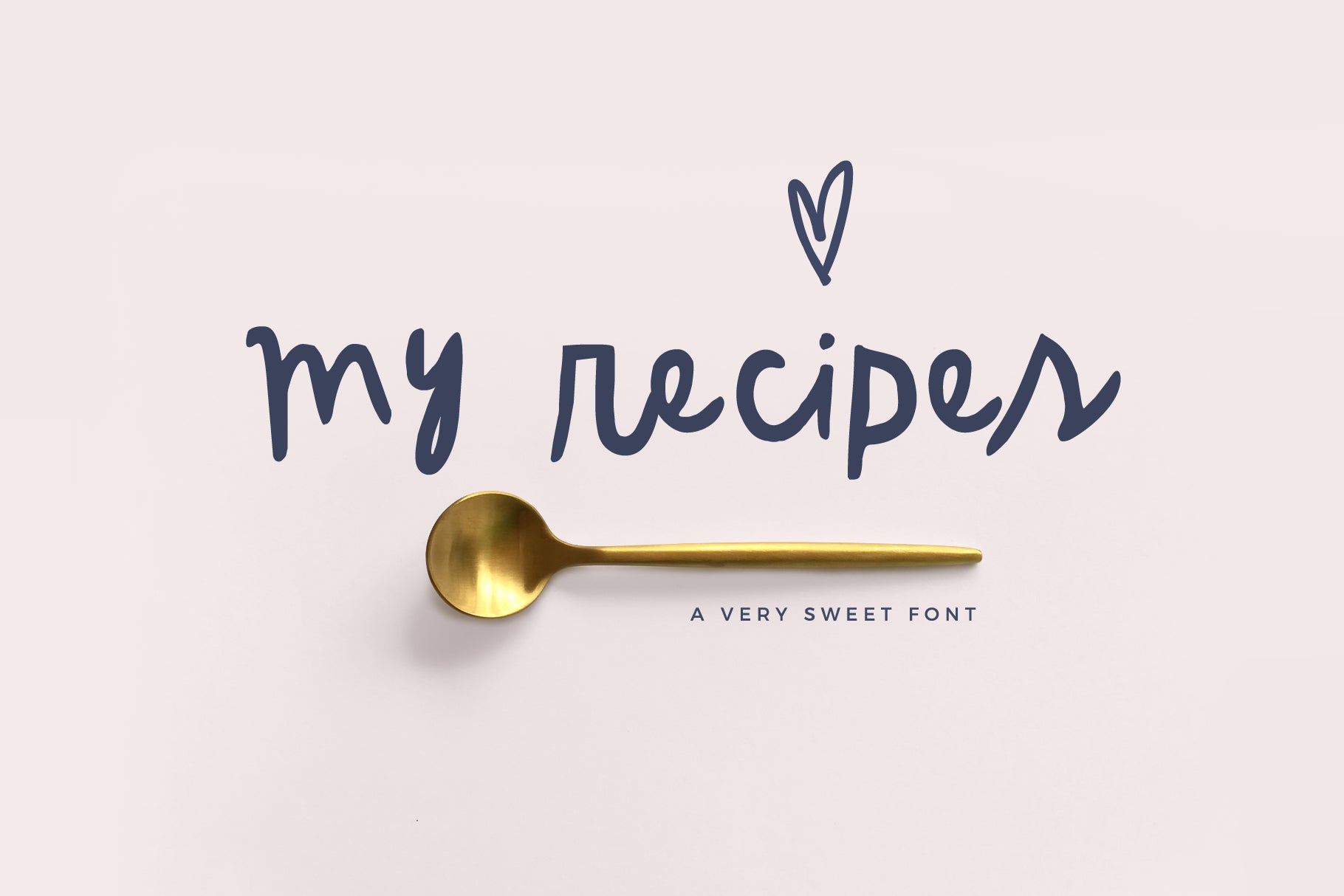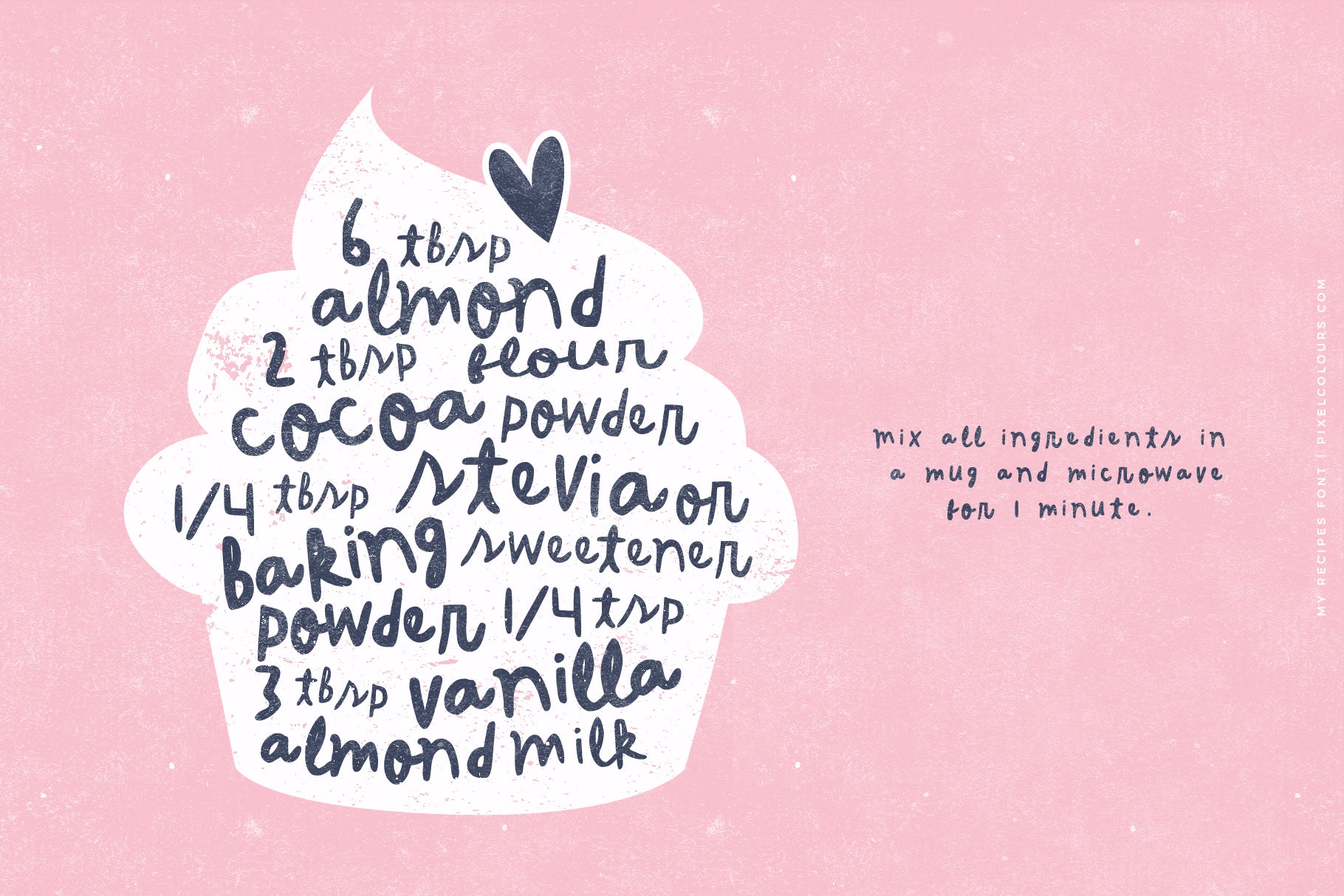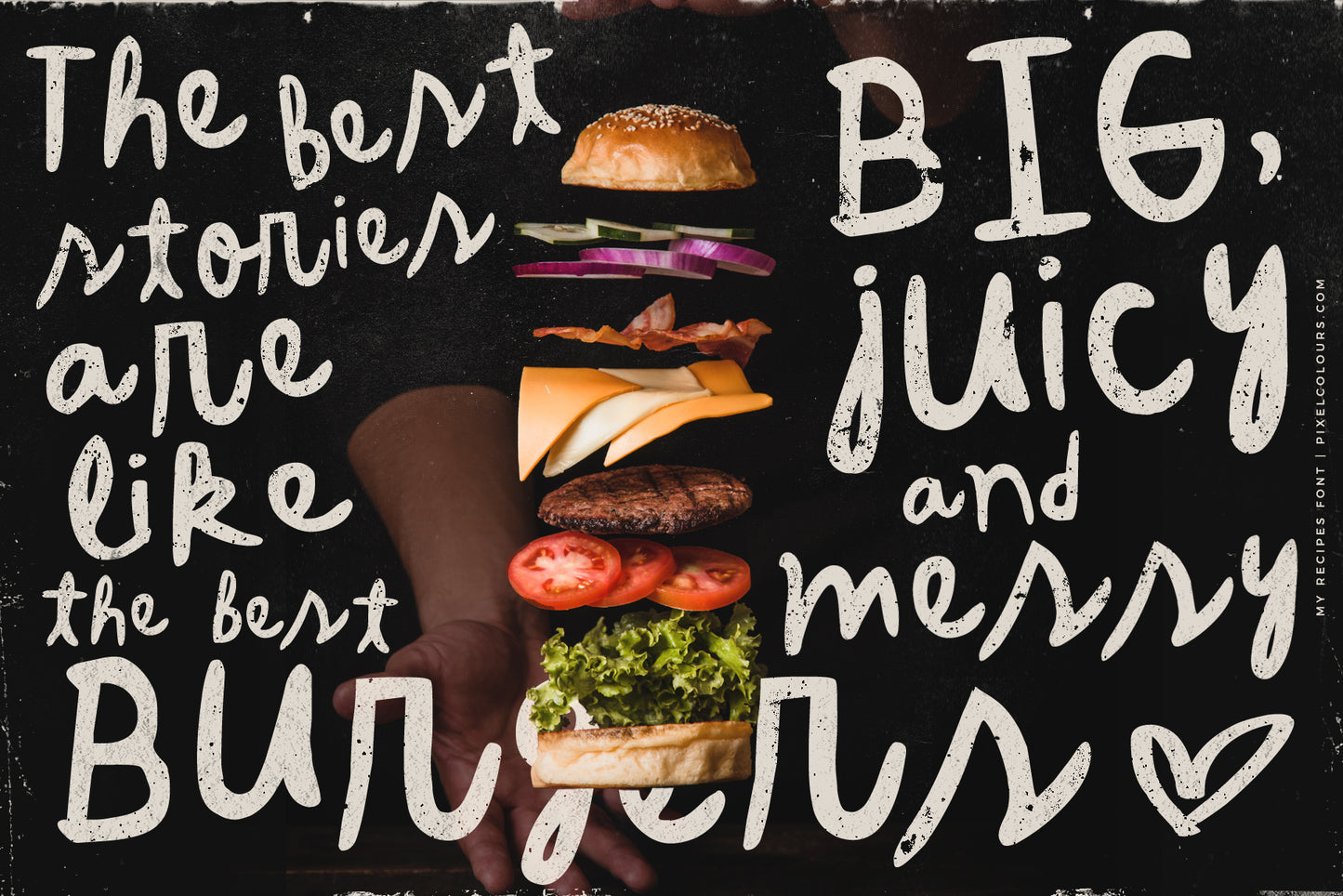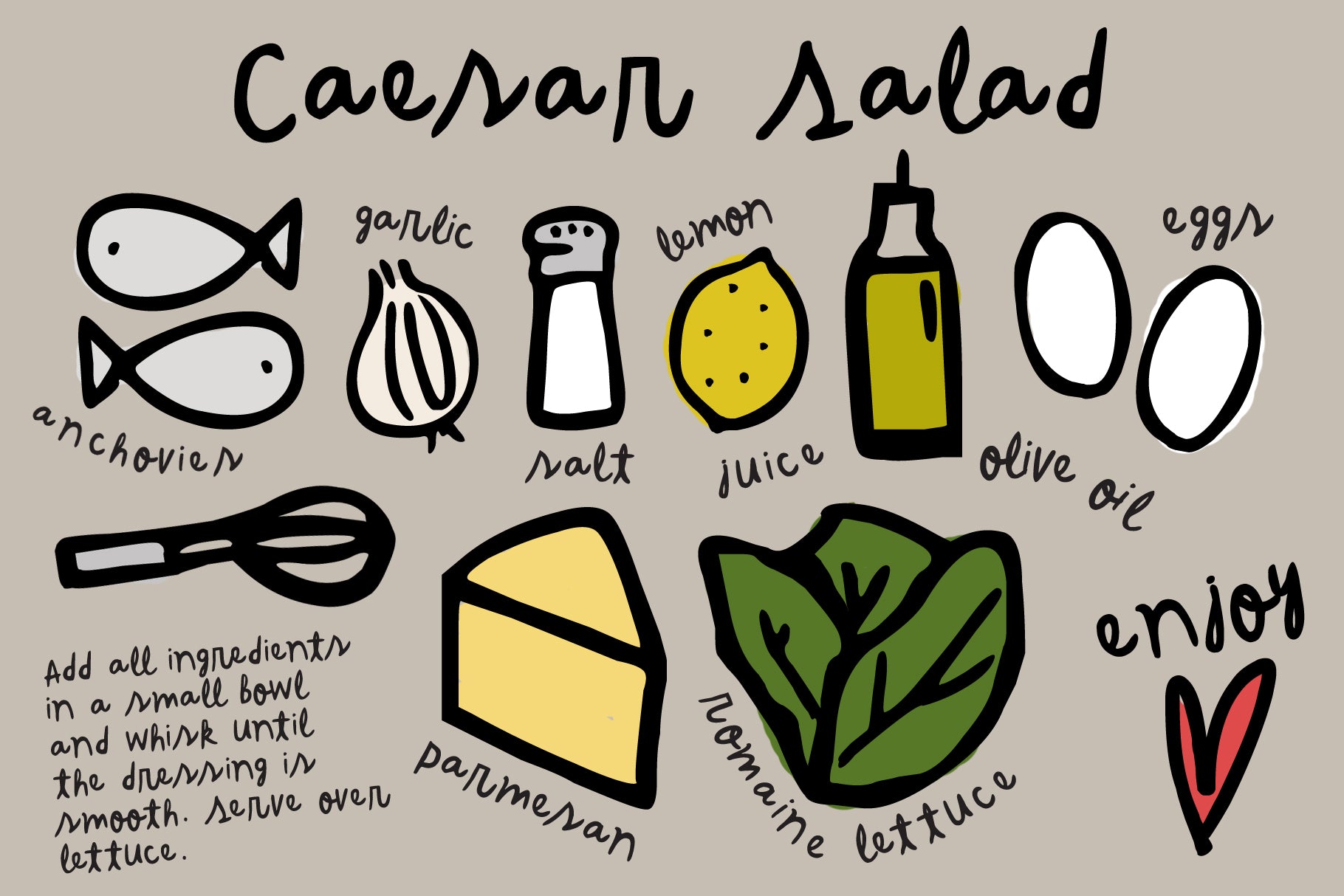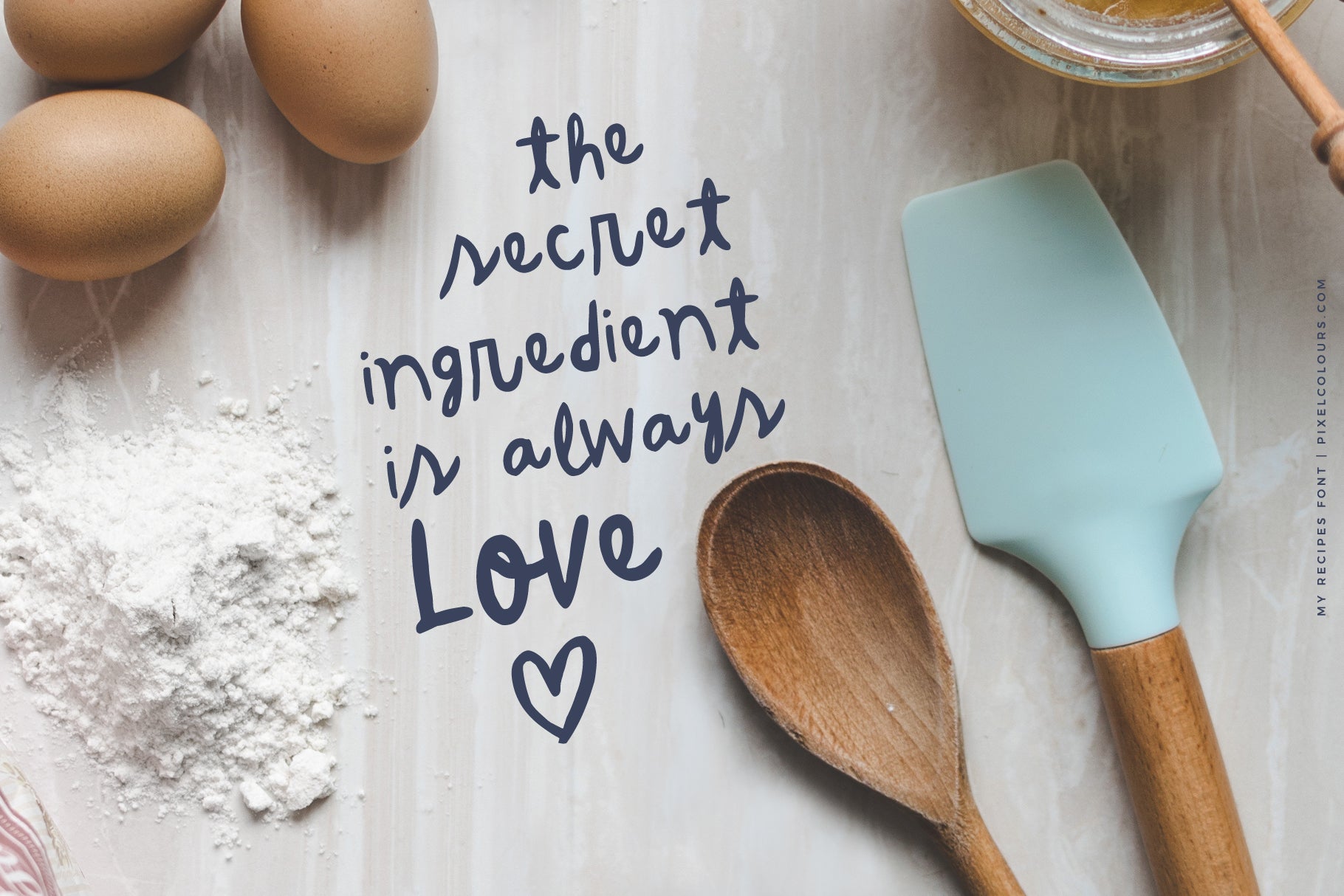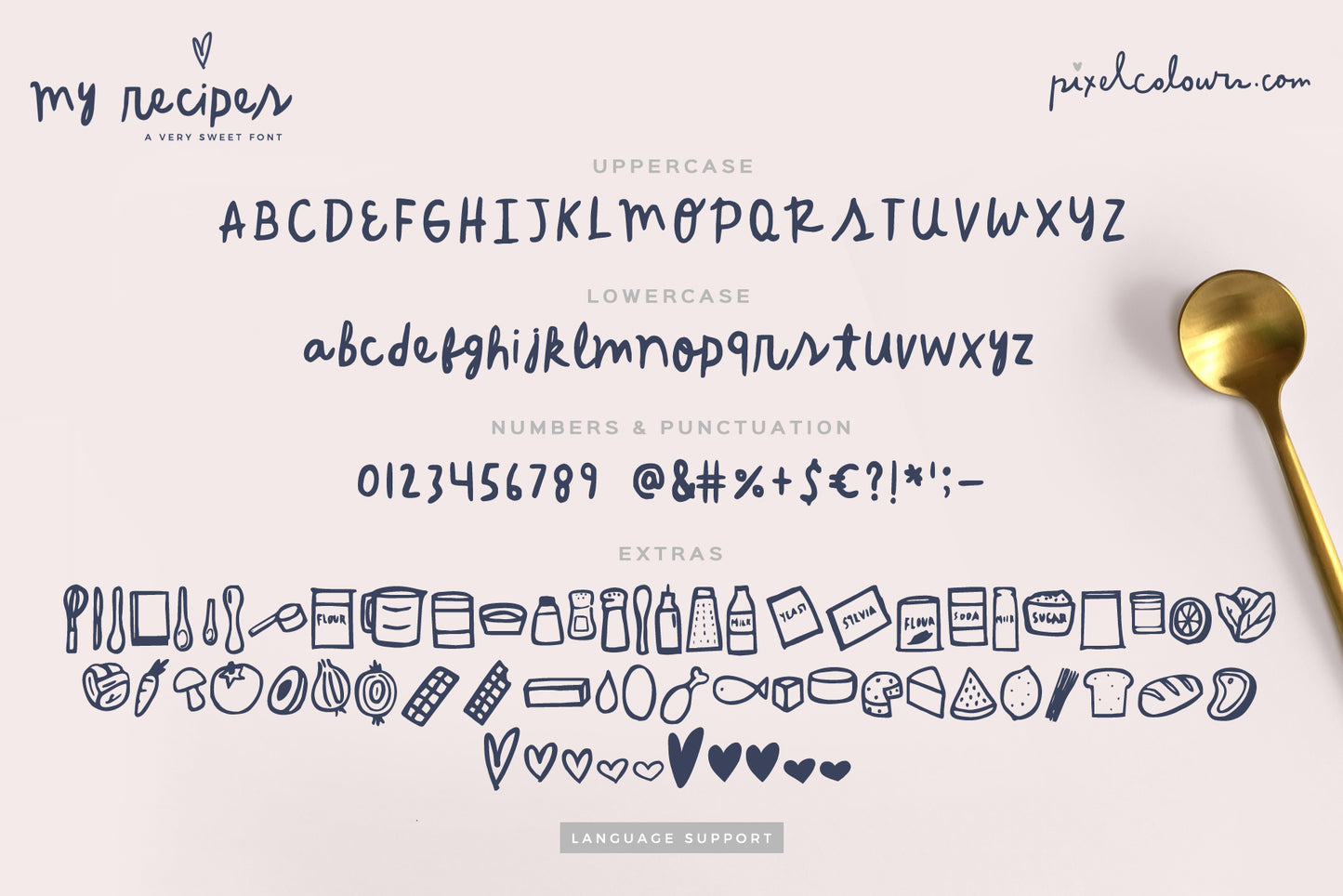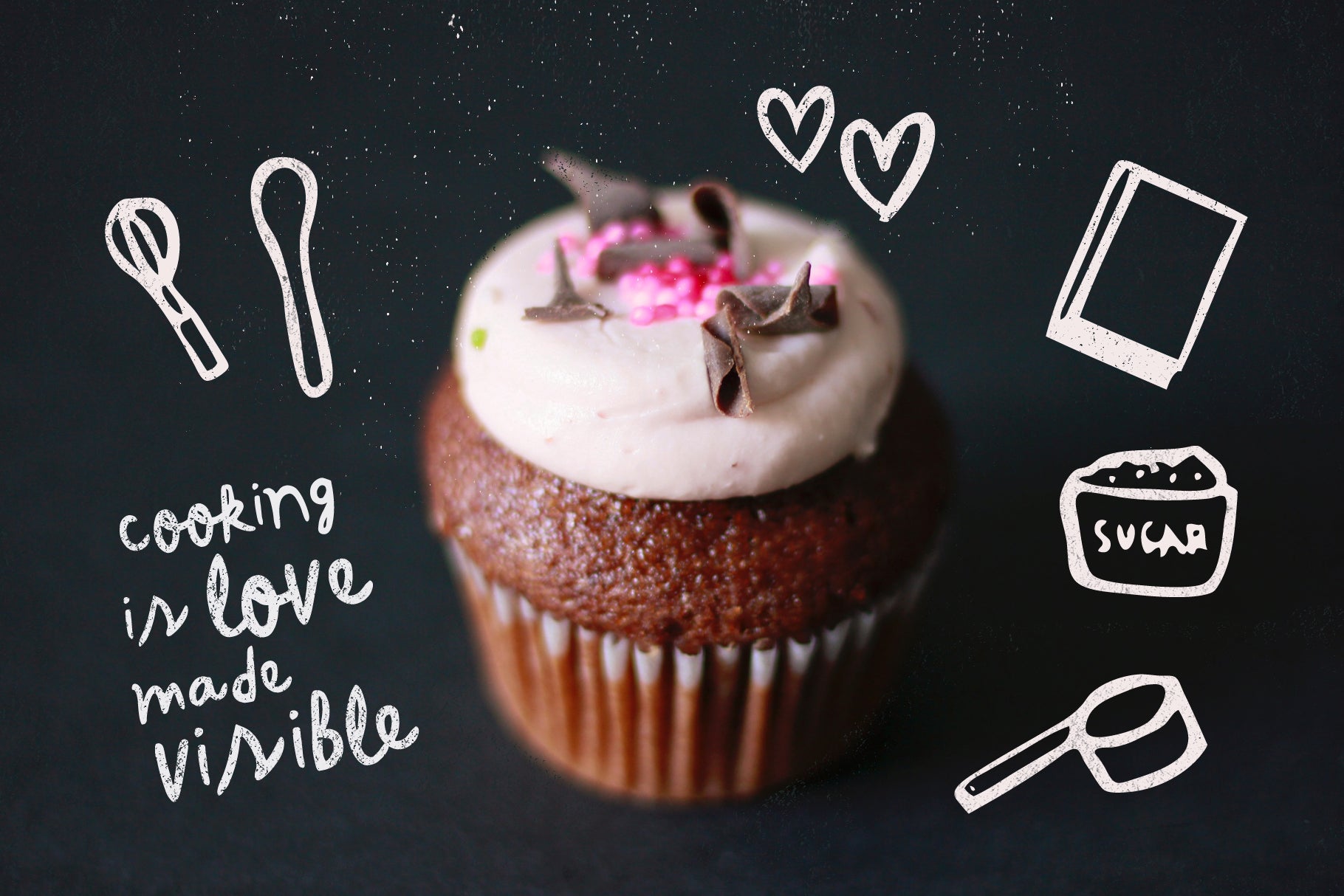
My Recipes Handwritten Font
My Recipes is a cool font great for cards, stationery, posters or anything you can design with a handritten style. Includes a dingbats font that contains delicious cooking illustrations, great for creating recipes, Pinterest posts and ads. A different font that you don't want to miss!
- My Recipes: the handwritten font
- My Recipes Extras: delicious illustrations for decoration